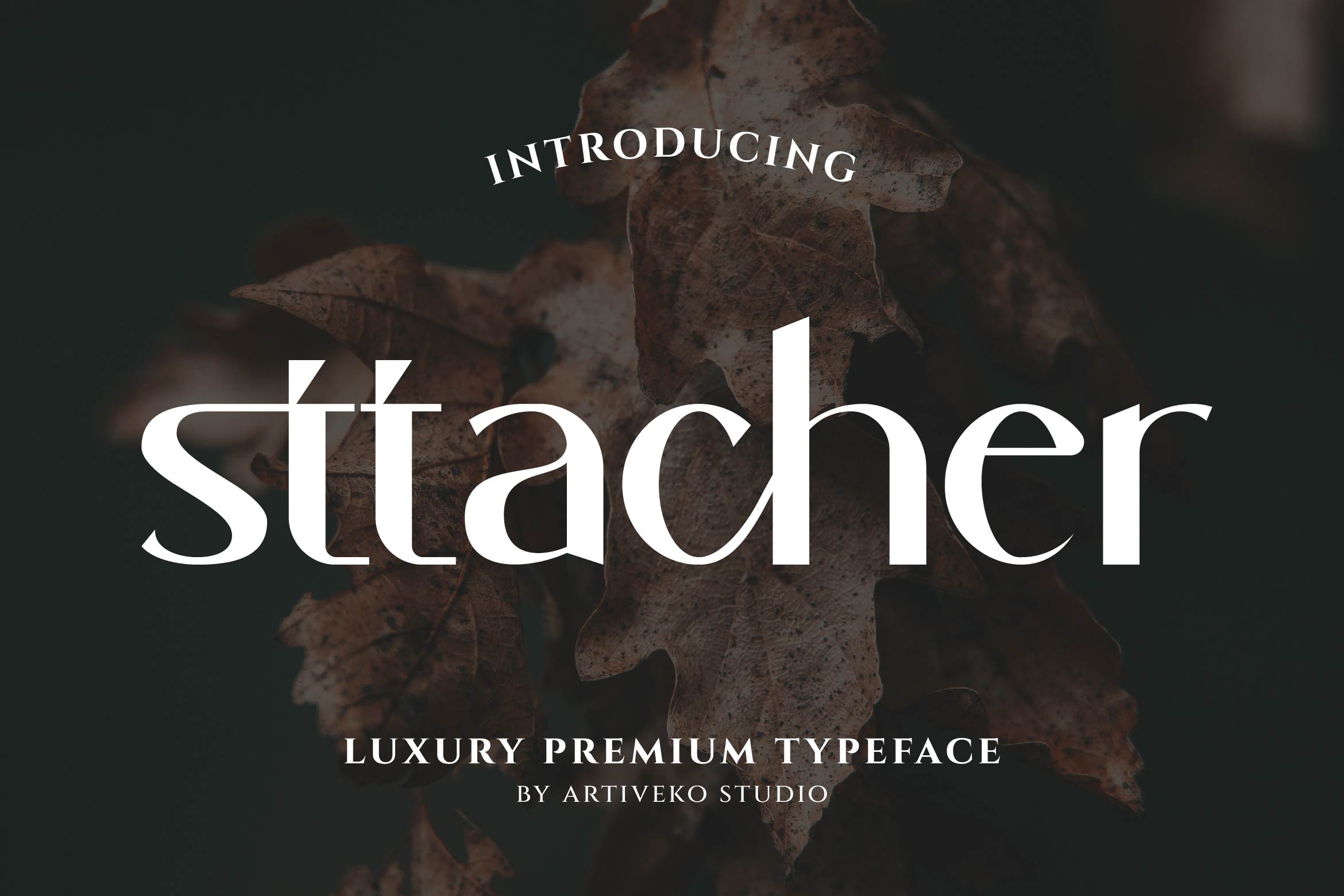
- Sttacher Luxury Sans Serif Font
Sttacher is a sleek and refined sans serif font designed for clean, contemporary aesthetics. With its balanced proportions, smooth curves, and geometric precision, Sttacher brings simplicity and sophistication to any project. Perfect for branding, editorial layouts, packaging, web design, presentations, and social media graphics, this font ensures clarity and style in every detail.
Its minimalist design makes it highly versatile, adapting beautifully to both bold headlines and smaller body text without losing readability. Sttacher is ideal for fashion, tech, lifestyle, and creative industries seeking a timeless, professional typeface.
Bring modern simplicity to your designs with Sttacher — the minimalist sans serif that defines elegance, balance, and contemporary clarity.